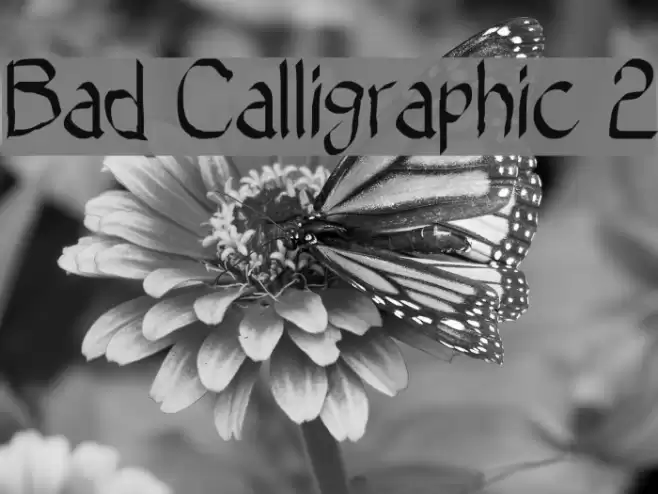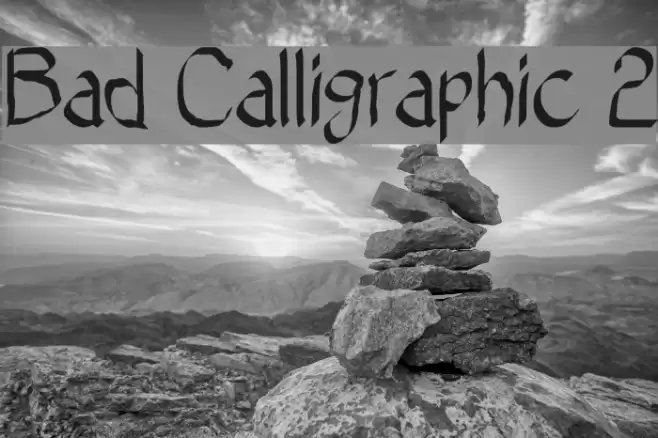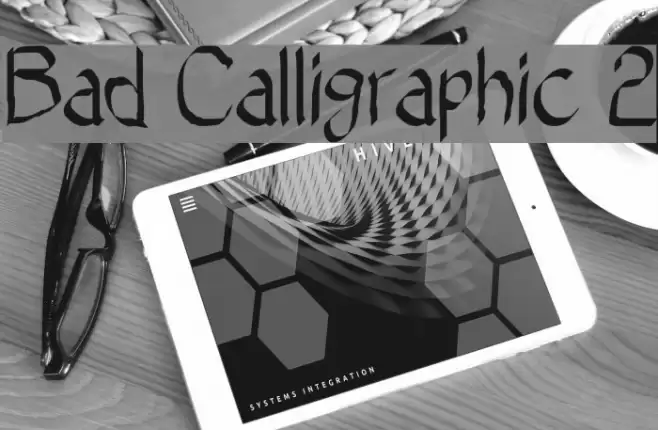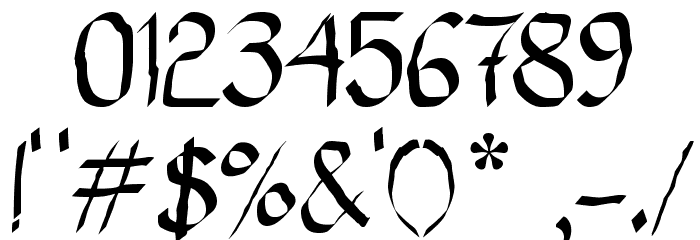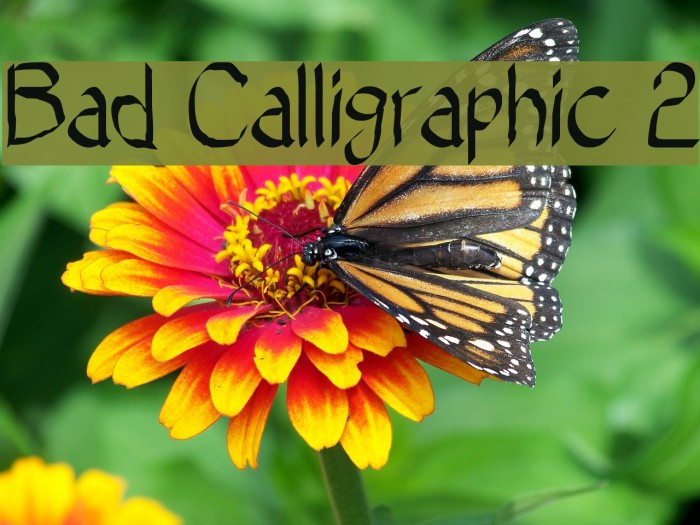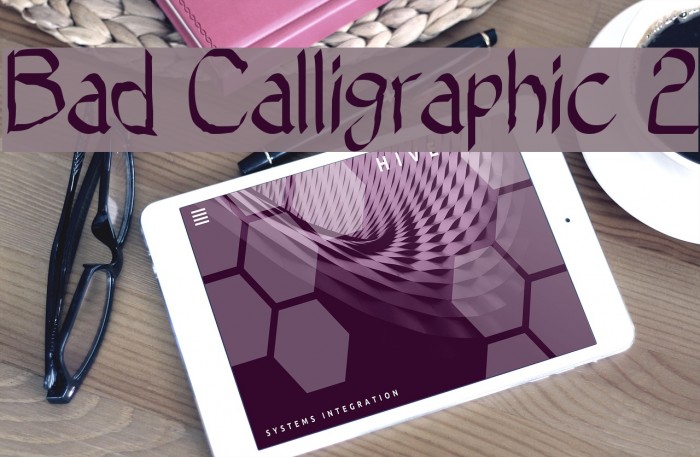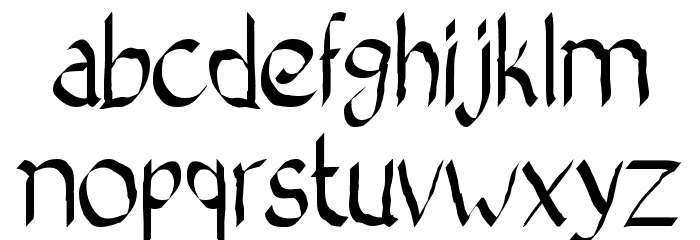
Bad Calligraphic 2 Font
Bad Calligraphic 2 Description
This font exhibits a unique calligraphic style with a bold and artistic flair. The characters are crafted with sharp, angular strokes that give them a dynamic and edgy appearance. The uppercase letters are tall and commanding, while the lowercase letters maintain a consistent flow, adding to the overall elegance of the design. The numerals are distinct and easily readable, complementing the alphabetic characters. Special characters are creatively integrated, maintaining the font's artistic integrity. This font is ideal for projects that require a touch of sophistication and creativity, such as invitations, logos, and artistic posters.
A bold, calligraphic font with sharp, angular strokes and artistic flair from Handwritten fonts.
- Proposed Projects: Ideal for invitations, logos, artistic posters, and creative branding.
- Use Case: Logos, Artistic posters, Invitations